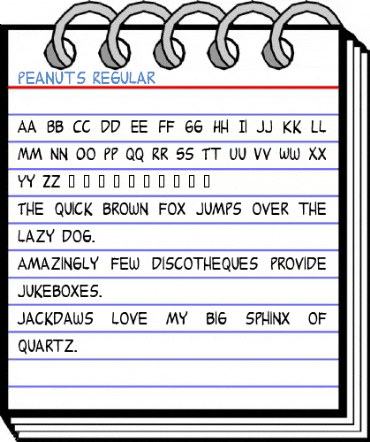
Peanuts Regular Font
Copyright: 99 John K. Barrow Aestheticware If you use this font or even just like it, you MUST do something to make the world look a little better. Violators will be shot Based on the friendly handwriting of Sparky Alternate characters included